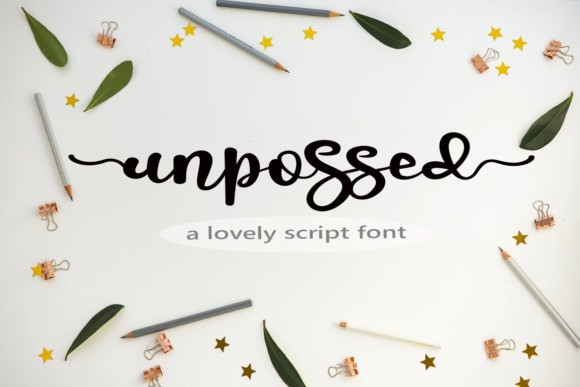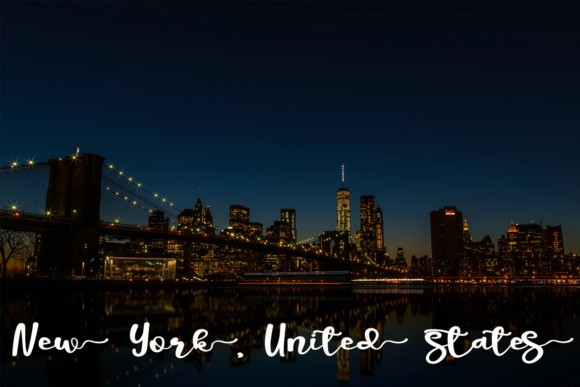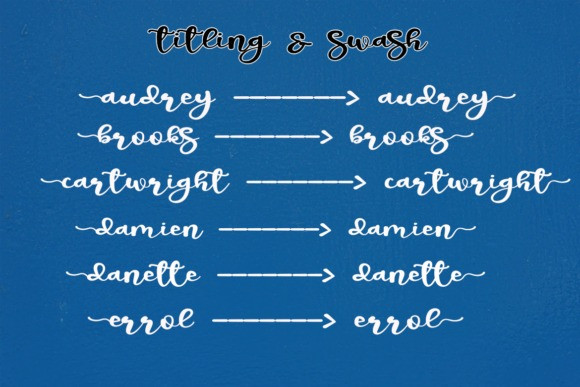
Bilyardeis Handwriting Font
Bilyardeis script font is perfect for many different project such as logos & branding, invitation, stationery, wedding designs, social media posts, advertisements, product packaging, product designs, label, photography, watermark, special events or anything.